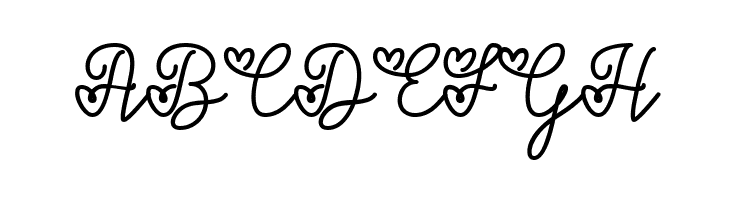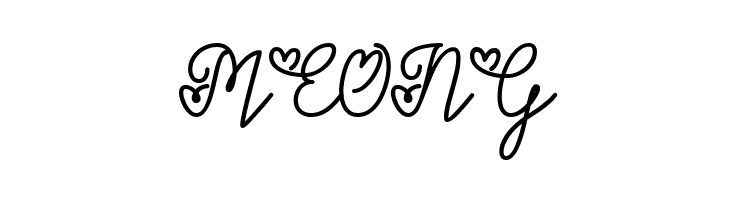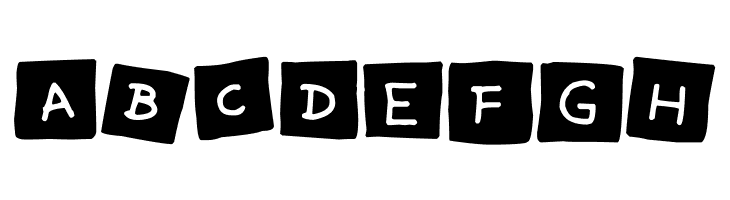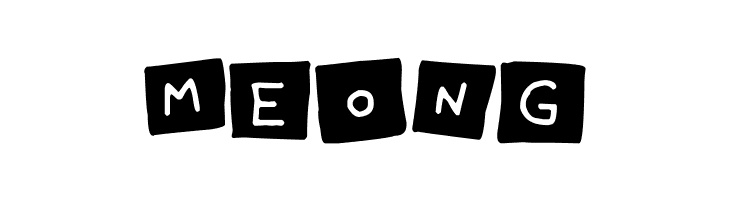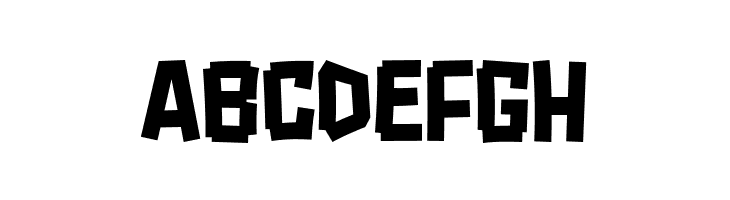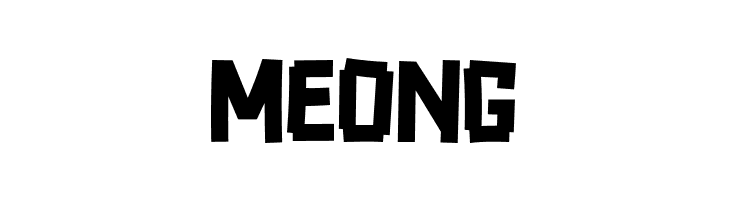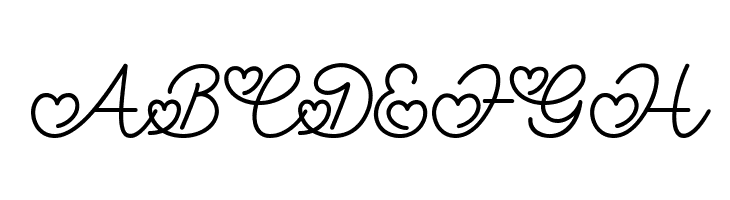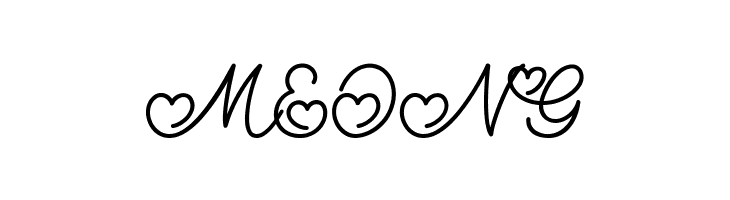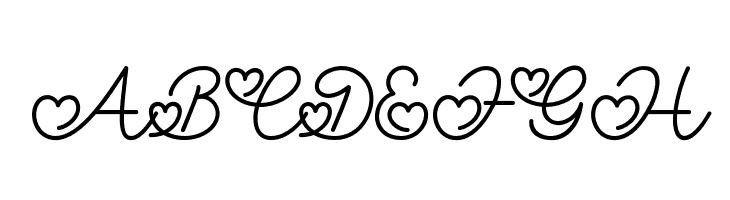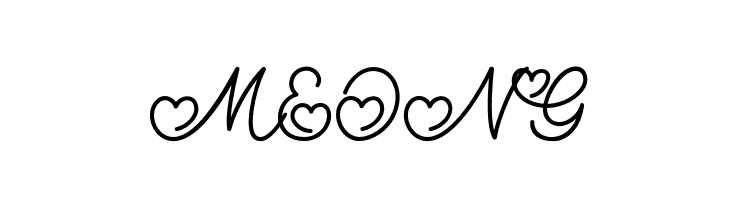
A bold, elegant script font with high contrast and flowing cursive letterforms.
An elegant script font with flowing, cursive strokes and graceful curves.
A playful and elegant script font with a handwritten style.
A sophisticated cursive font with elegant, flowing strokes.
A playful, bubbly font with rounded, thick strokes and a friendly appearance.
A playful, bold, and italicized font with rounded characters.
A playful, bold font with rounded, cartoonish characters.
A bold, expressive handwritten font with a lively and dynamic style.
A playful, heart-themed font with bold, chunky letters and whimsical charm.
A playful, handwritten font with tall, narrow letters and a modern feel.
A playful, hand-drawn font with characters on individual tiles, perfect for creative projects.
A whimsical font with heart motifs in uppercase and elegant cursive lowercase.
A charming, flowing script font with elegant, cursive letterforms and high contrast.
A romantic, heart-adorned script font with elegant cursive lowercase letters.
A romantic and elegant script font with flowing, cursive strokes.
A romantic script font with heart motifs and flowing cursive style.
A playful, handwritten style with smooth, flowing characters and a casual flair.
A graceful script font with flowing, interconnected letters and high contrast strokes.
A graceful script font with flowing, cursive letters and a sophisticated style.
A charming and elegant script font with flowing, cursive letterforms.
Playful handwritten script with tall, narrow, and whimsical strokes.
A romantic and sophisticated script font with flowing, interconnected letters.
A bold, angular font with a rugged, geometric style.
A bold, graffiti-inspired font with blocky, angular characters.
Bold, angular, and modern with a strong, edgy appearance.
A decorative font with organic, flowing shapes and intricate details.
An elegant script font with fluid, cursive strokes and a sophisticated appearance.
A bold, playful font with cartoonish serifs and rounded strokes.
A playful, flowing script font with a handwritten appearance.
An elegant, flowing script font with graceful, cursive letterforms and decorative flourishes.
A jagged, angular font with a dynamic and edgy appearance.
A bold, dynamic script font with interconnected characters and a modern vintage charm.
A playful, bold font with rounded edges and a hand-drawn appearance.